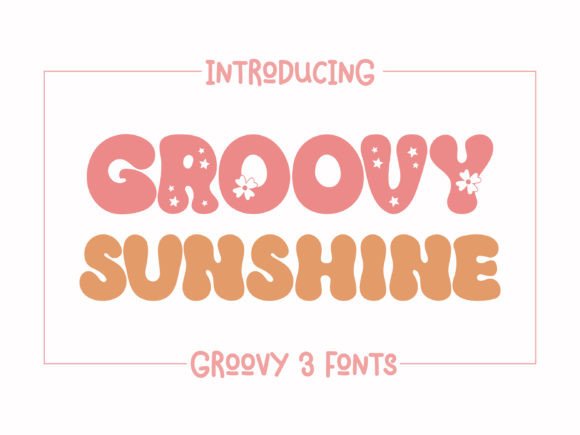
Groovy Sunshine: The Ultimate Retro Display Font
If you are looking to inject a burst of nostalgic energy into your next creative project, the Groovy Sunshine free download option is exactly what designers need right now. This unique typeface brings a fun and cute groovy vibe inspired by retro bold typography, making it an instant standout in the crowded world of digital design. Whether you are working on a vintage poster or a modern brand identity, securing the Groovy Sunshine font download allows you to add that special retro touch to any design idea without breaking the bank.
In this review, we explore why this premium Display font has become a favorite for creatives seeking authentic 70s aesthetics. From its curvy letterforms to its playful personality, this typeface offers a versatile solution for various projects. If you decide to download Groovy Sunshine font free, you are choosing a tool that bridges the gap between classic charm and contemporary application.
Design & Style Analysis
The visual personality of Groovy Sunshine is defined by its warm, inviting curves and distinct lack of sharp edges. Unlike many rigid sans-serif options, this font breathes with a sense of movement and joy. It falls squarely into the best Display fonts for use case categories that require immediate attention and emotional connection.
Letterforms and Weight
The letterforms are constructed with a heavy weight that commands respect while maintaining a soft, approachable feel. The strokes vary slightly in thickness, mimicking the imperfect nature of hand-painted signage from the past. When compared to other professional Fonts font options, Groovy Sunshine stands out because it does not try too hard; it simply radiates confidence and fun.
Spacing and Readability
Despite its decorative nature, the spacing is surprisingly generous. This makes it highly legible even at smaller sizes, provided the context remains simple. The wide counters (the empty spaces inside letters like 'o' or 'e') allow the text to breathe, preventing the design from feeling cluttered. This balance is crucial when selecting a free Display font for Fonts collections intended for high-impact visuals.
Best Uses for Groovy Sunshine
This typeface is incredibly versatile, serving as a powerhouse for a wide array of applications. Its ability to convey warmth and nostalgia makes it suitable for both personal hobbies and serious commercial ventures.
Groovy Sunshine for Logo Design
Creating a memorable logo often requires a font that can stand alone without needing a complex icon. Groovy Sunshine for logo design is an excellent choice for cafes, boutique shops, or lifestyle brands that want to appear friendly and established. The bold curves create a strong visual anchor that works well in monochrome or vibrant color palettes.
Groovy Sunshine for Branding
Consistency is key in branding, and this font delivers a cohesive look across all touchpoints. When applying Groovy Sunshine for branding, you can use it for headlines, social media overlays, and packaging labels. Its retro roots help a brand tell a story of authenticity and timelessness, setting it apart from competitors using generic sans-serifs.
Groovy Sunshine for Wedding Invitations and Typography
For events that celebrate love and happiness, the cheerful nature of this font is unmatched. Groovy Sunshine for wedding invitations/cards/typography adds a whimsical yet elegant touch to stationery. It pairs beautifully with floral illustrations, creating an invitation suite that guests will remember fondly.
Groovy Sunshine for Posters and Packaging
When visibility is paramount, such as in marketing materials, this font excels. Groovy Sunshine for posters/social media/packaging ensures your message cuts through the noise. The thick strokes hold up well against busy backgrounds, making it ideal for album covers, concert flyers, and product labels.
Font Pairing & Combinations
To get the most out of this display typeface, you must choose a complementary body text that balances its boldness. Many designers ask what fonts pair well with Groovy Sunshine to achieve a harmonious layout. The goal is to let the headline do the talking while the supporting text remains unobtrusive.
For a classic look, try pairing it with a clean geometric sans-serif like Montserrat or Lato. This combination creates a modern contrast that keeps the design fresh. Alternatively, if you want to lean fully into the retro aesthetic, a serif font with high contrast, such as Playfair Display, can add a layer of sophistication. These best font combinations with Groovy Sunshine ensure readability while maintaining the intended mood.
Understanding Groovy Sunshine font pairing is essential for professional results. Avoid using another decorative font nearby, as this will create visual chaos. Stick to simple, neutral typefaces that allow the unique character of Groovy Sunshine to shine.
Here are a few practical tips for success: always test your text in black and white first to ensure the weight is balanced. Check how the font looks at small sizes, as decorative elements can sometimes blur. Finally, review the spacing manually; auto-tracking rarely captures the perfect rhythm of a display font. By following these guidelines, you ensure that your final design feels polished and intentional.